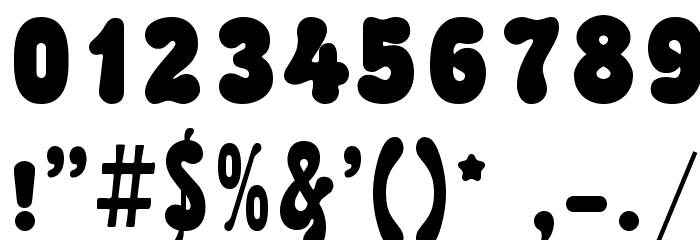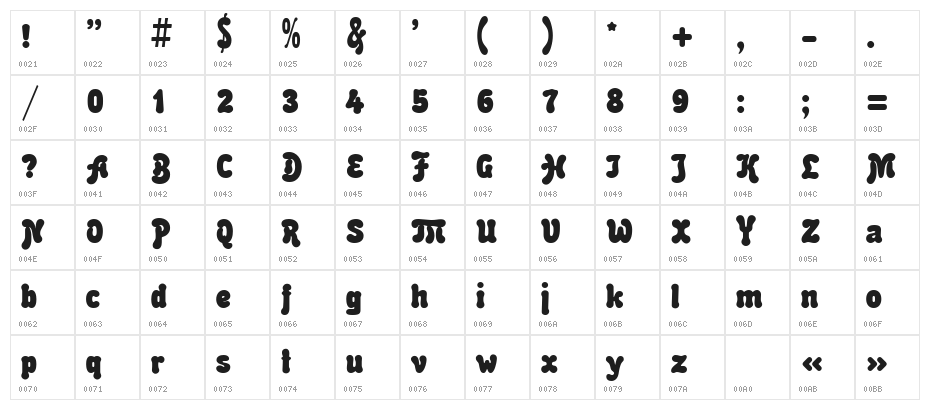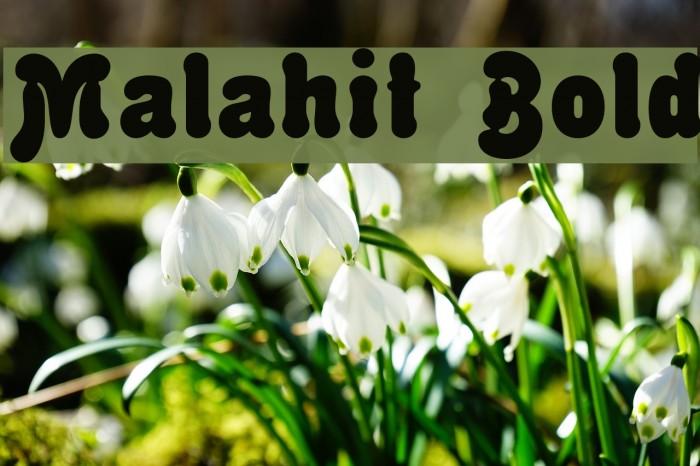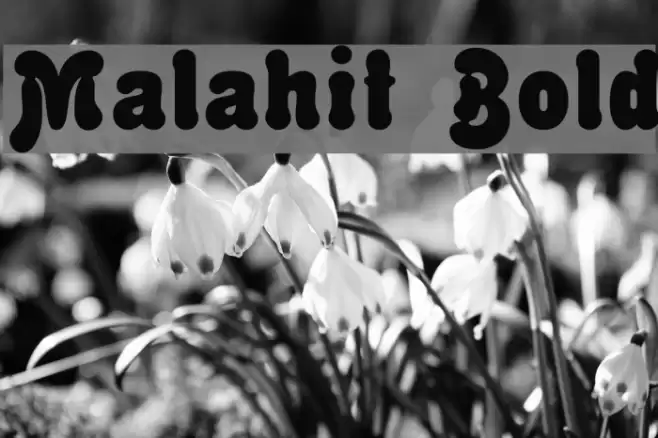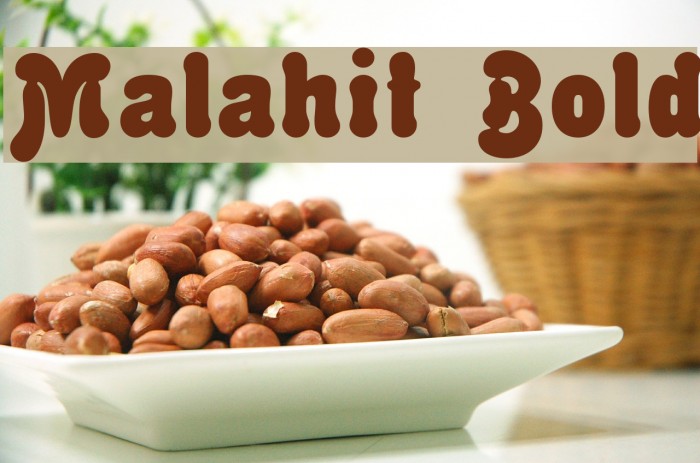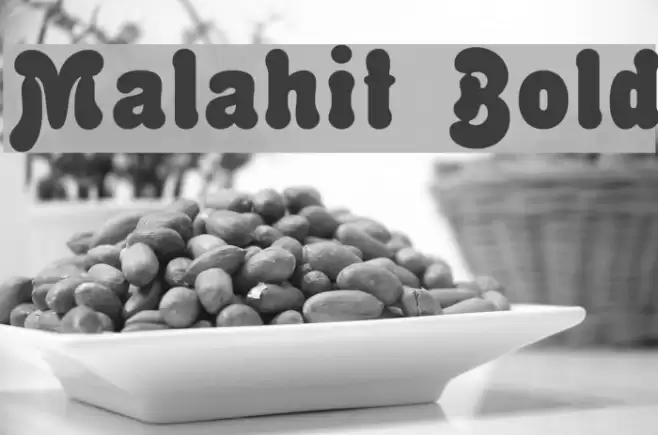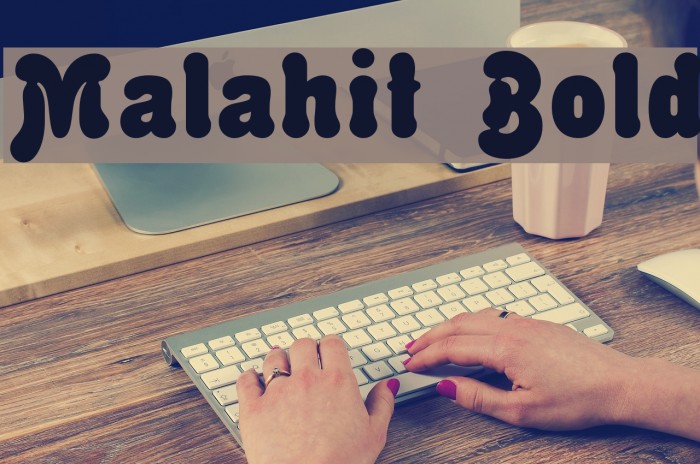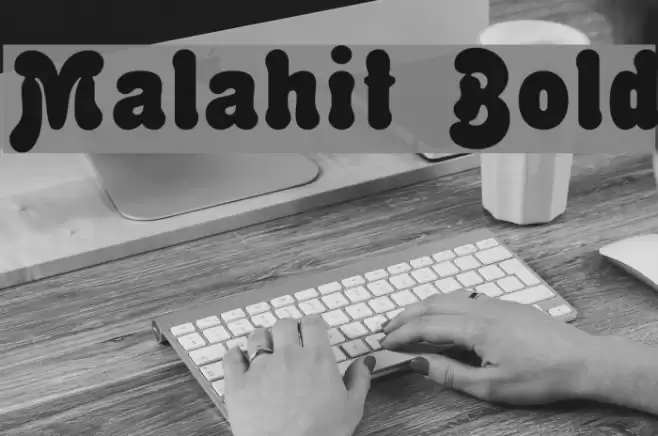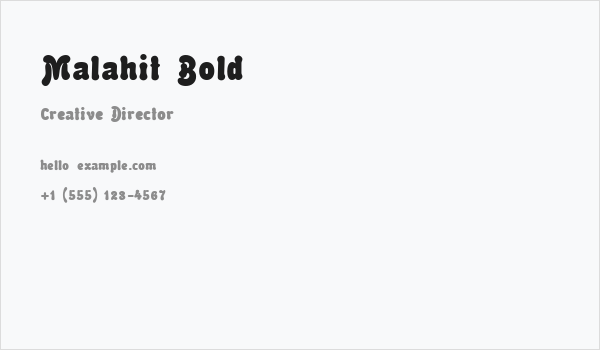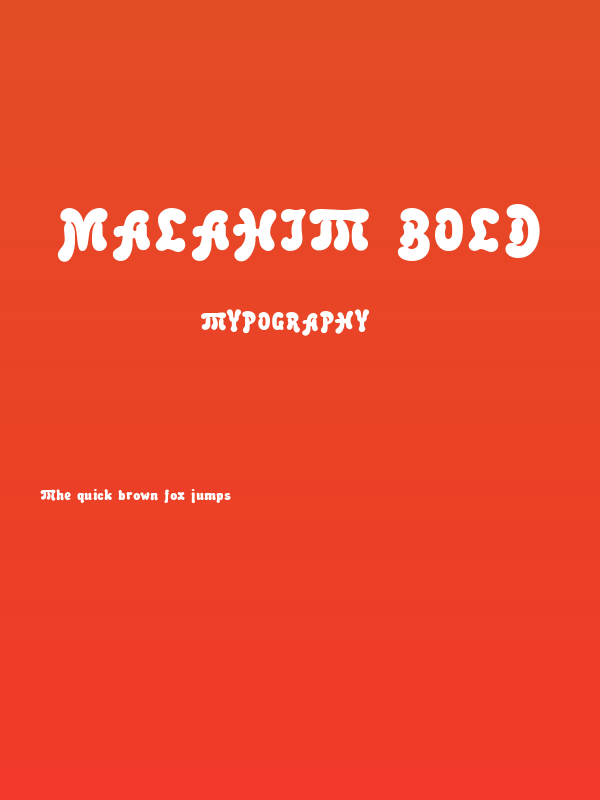
Malahit Bold Font
Malahit Bold Description
This font features a bold, playful style with thick, rounded strokes and a bubbly appearance. The characters are highly stylized, with a whimsical touch that makes them stand out. The uppercase letters have a consistent height, while the lowercase letters maintain a uniform baseline, contributing to a cohesive look. The numerals are equally bold, matching the overall aesthetic of the alphabet. Special characters are designed with the same playful curves, ensuring a harmonious appearance across all glyphs. This font is perfect for projects that require a fun and engaging visual impact.
| Proposed Projects | Ideal for children's books, playful branding, posters, and creative invitations. |